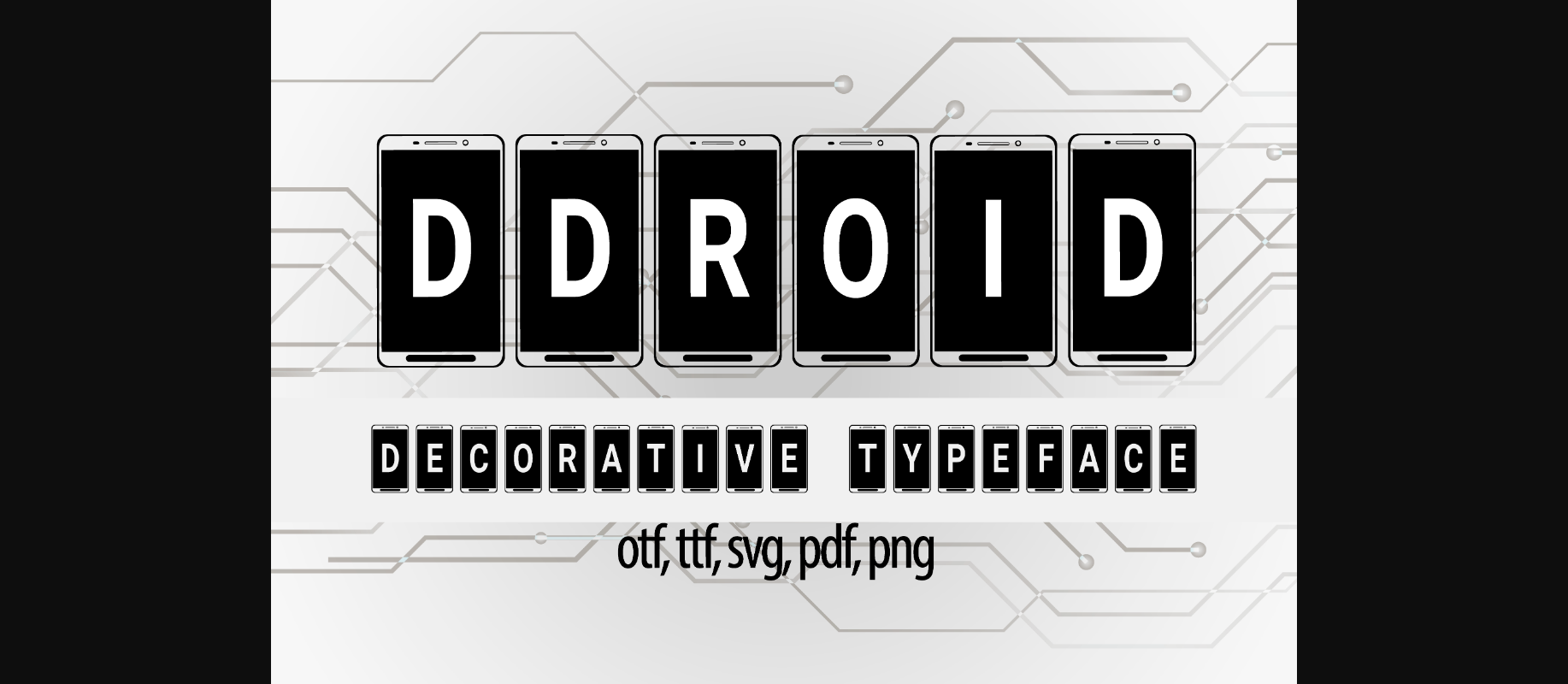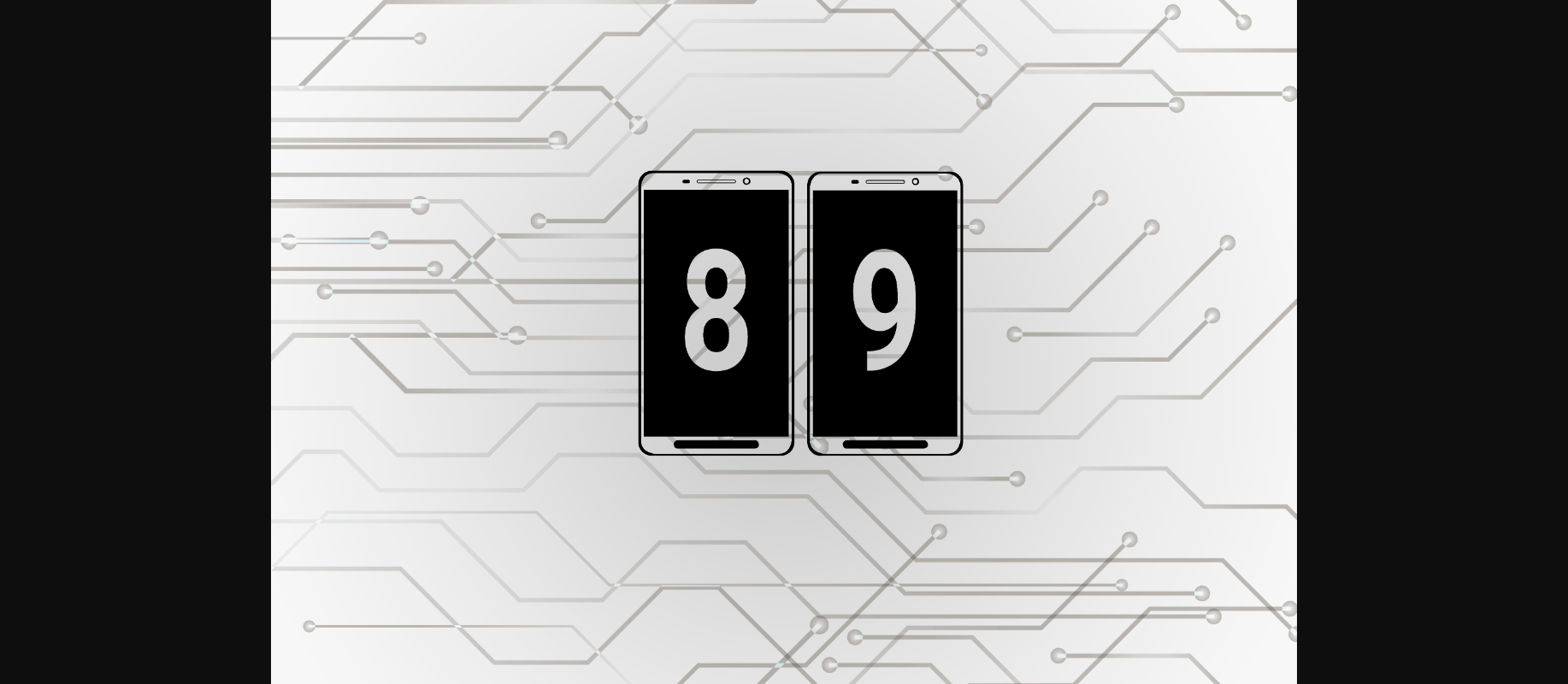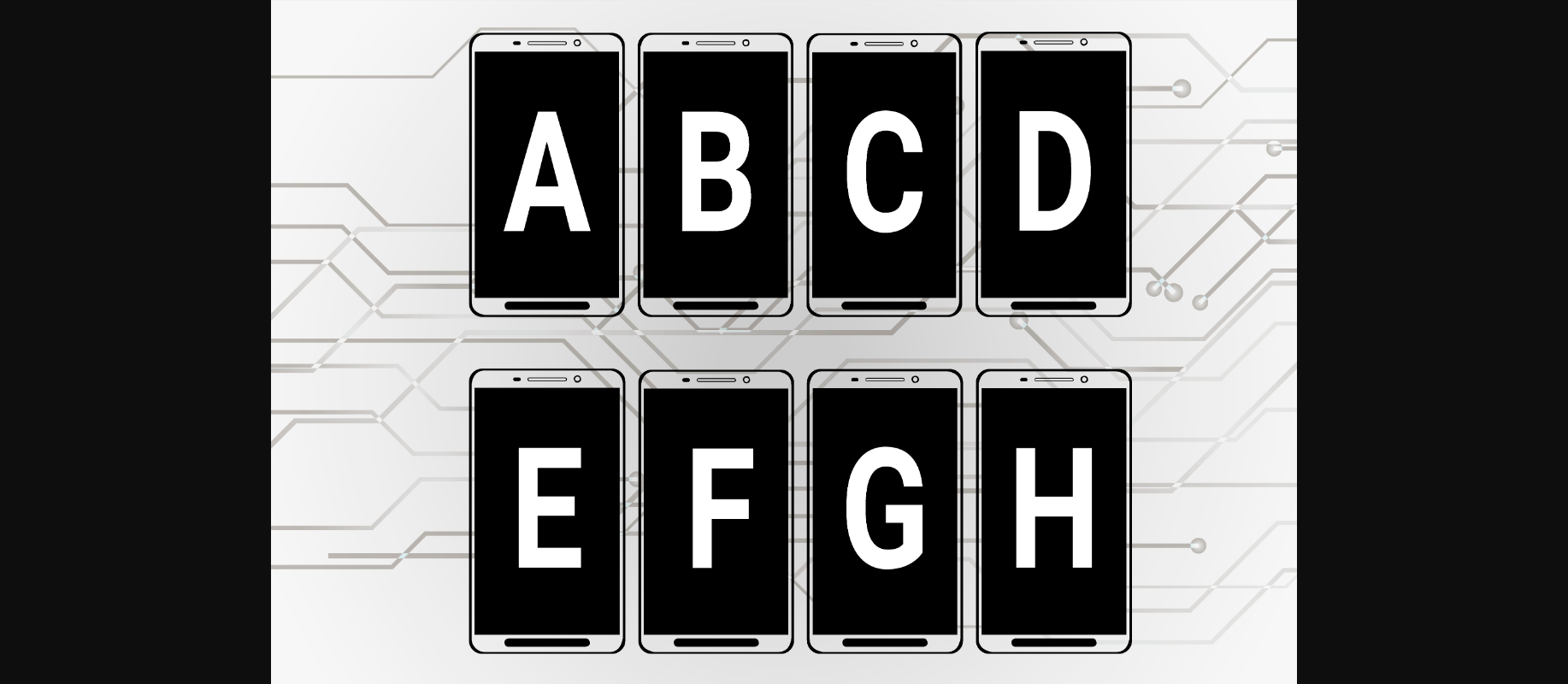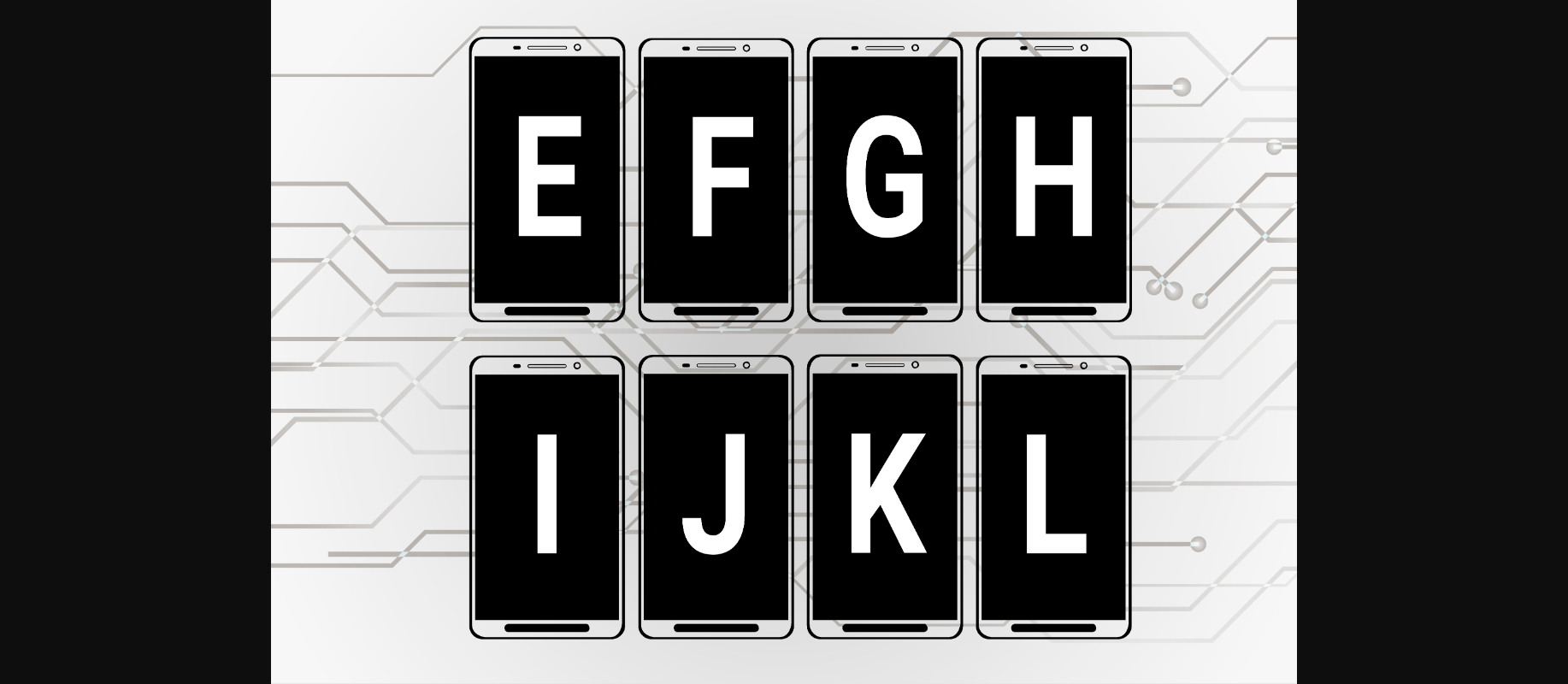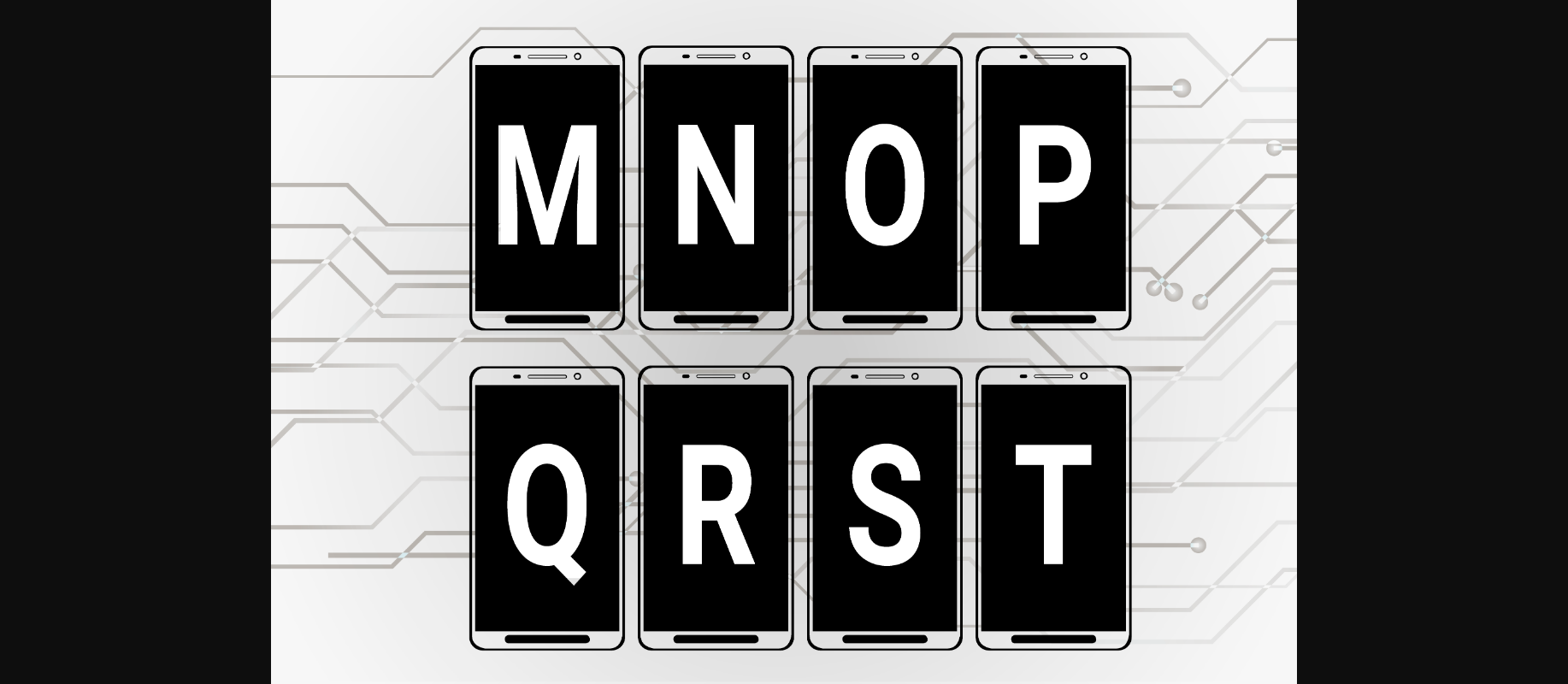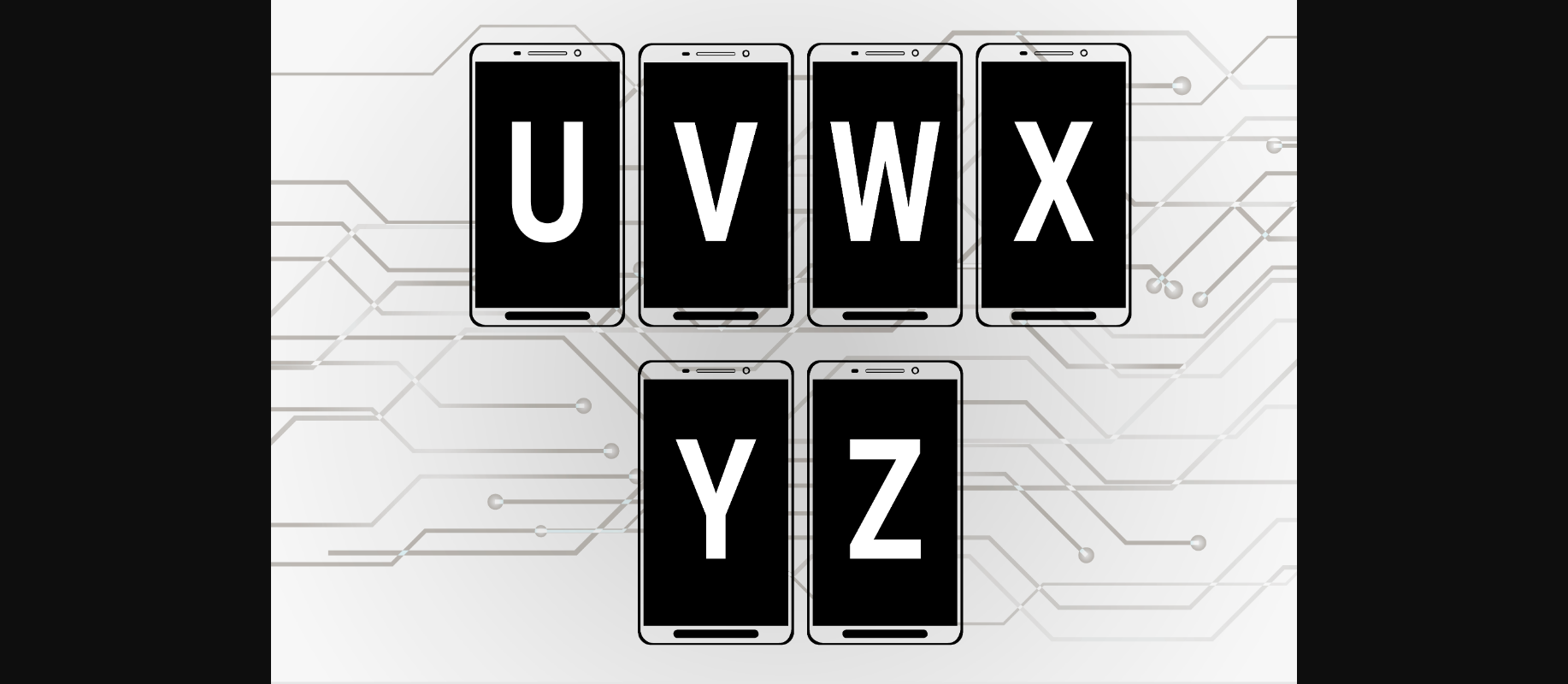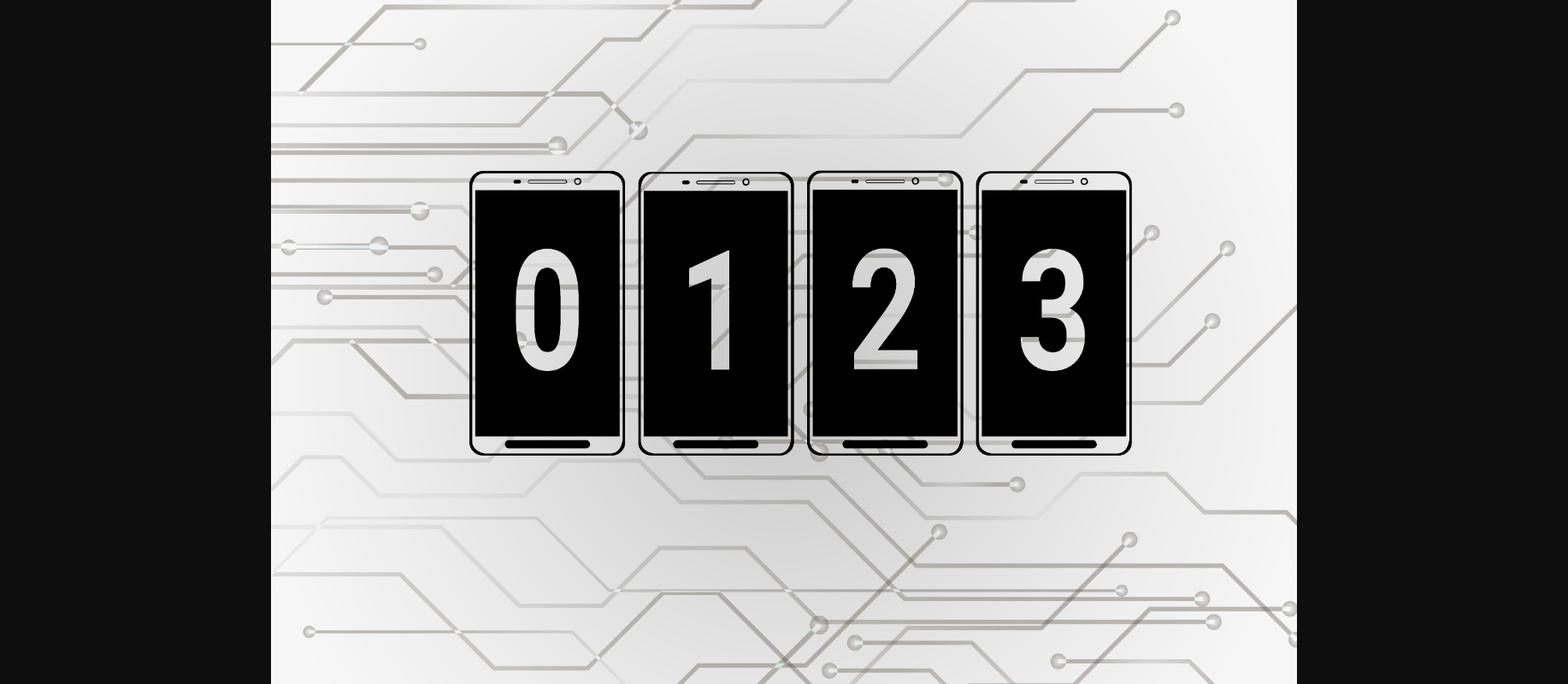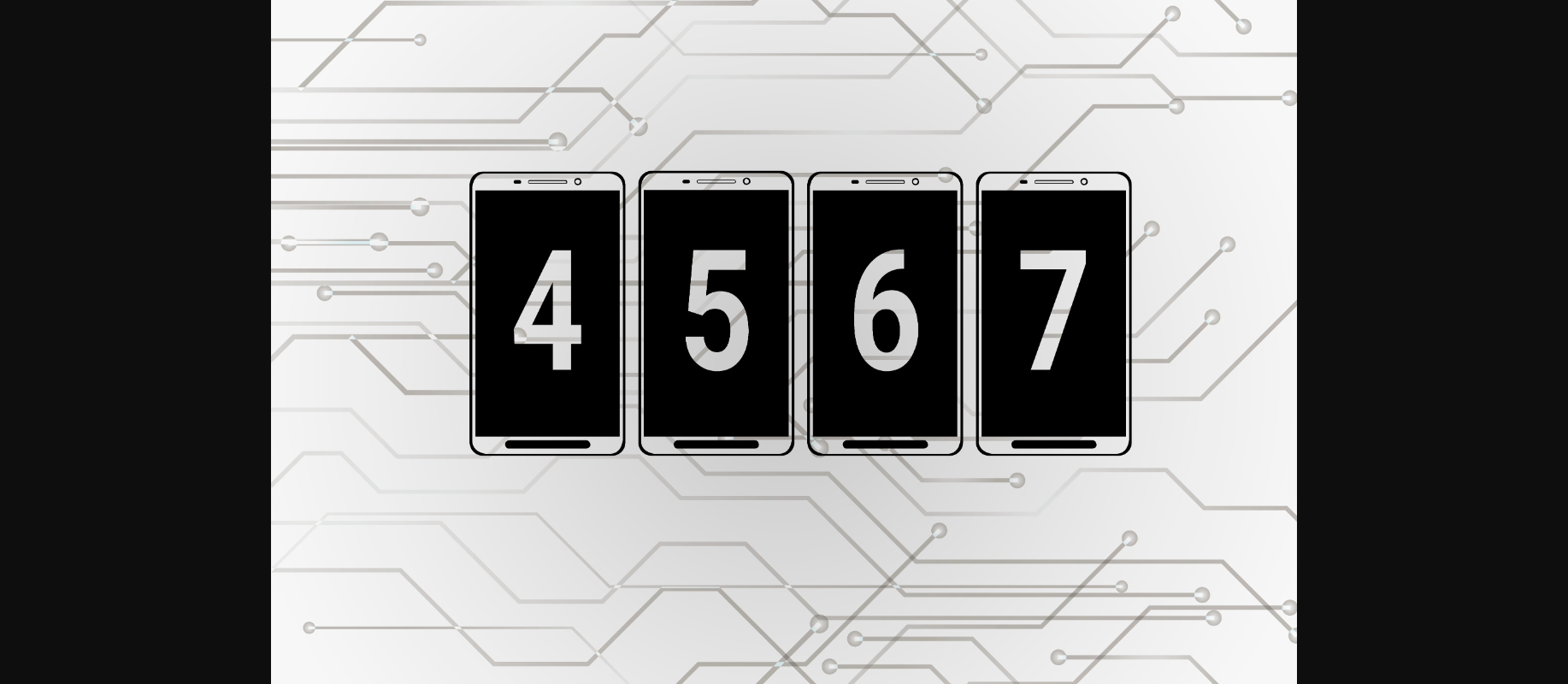
HomeDecorative FontsDDroid Font Decorative Fonts DDroid Font FacebookXPinterestWhatsApp 1 of 10 ... DDroid Font Poster 2... DDroid Font Poster 3... DDroid Font Poster 4... DDroid Font Poster 5... DDroid Font Poster 6... DDroid Font Poster 7... DDroid Font Poster 8... DDroid Font Poster 9... DDroid Font Poster 10... About DDroid Font DDroid is a cool decorative font. It works incredibly well for interactive and dynamic projects, whether they’re logos, brands, ads or others. DOWNLOAD NOW People also explored Sekek Font Qhoc Font Love in Hearts Font Christwish Font Himperial Font Valerina Font Rolista Font Tropical Font Coffee Break Font 414 0 TagsDDroidDDroid Font Previous articleRd Monogram FontNext articleLevina Monogram Font Font LEAVE A REPLY Cancel reply Comment: Please enter your comment! Name:* Please enter your name here Email:* You have entered an incorrect email address! Please enter your email address here Website: Save my name, email, and website in this browser for the next time I comment. Personal Use Free Abingdon Personal Use Free Read more about this font Cosmos Personal Use Free Read more about this font Rumaniaya Personal Use Free Read more about this font Messages Personal Use Free Read more about this font BLOG Best Fonts for YouTube Videos: Make Your Thumbnails Stand Out Best Fonts for YouTube Videos: Make Your Thumbnails Stand Out Choosing the right font can make a massive difference in how your YouTube videos perform.... Fonts That Capture the Spirit of New York City Top 10 Handwritten Fonts That Elevate Your Designs The 10 Best Handwriting Fonts to Add Personality to Your Designs